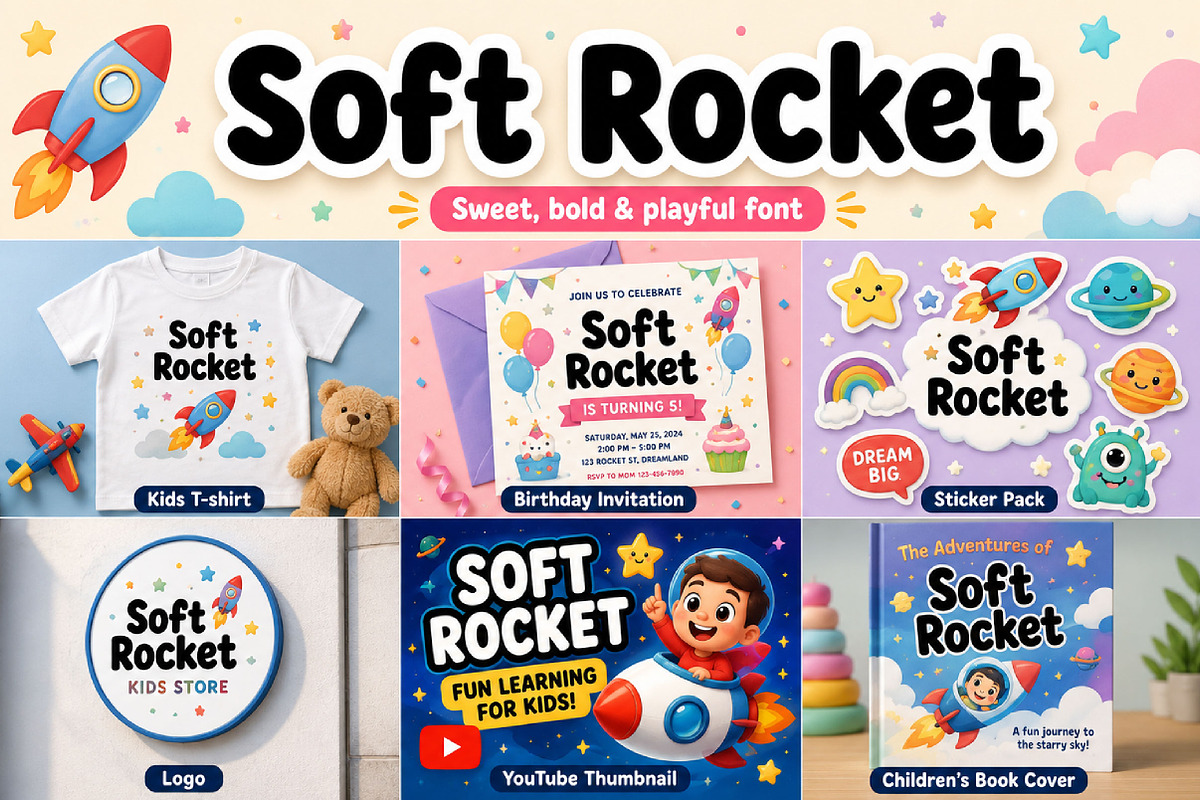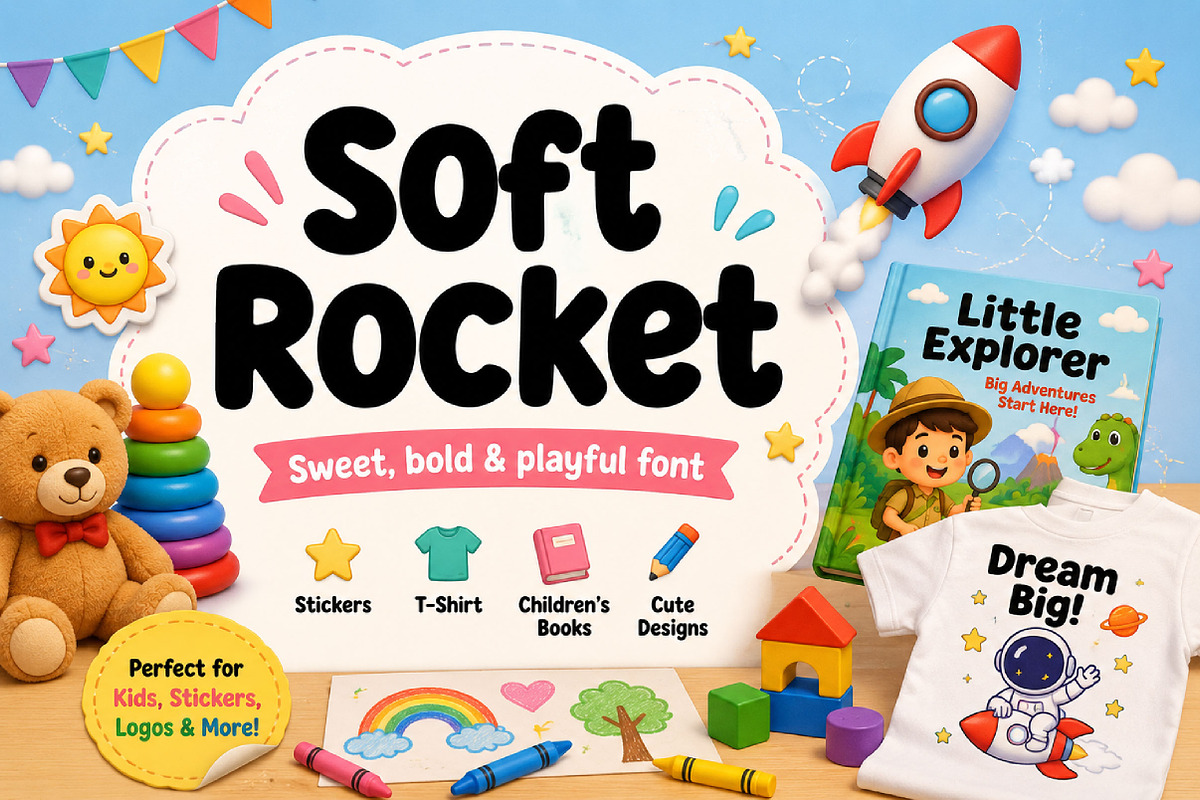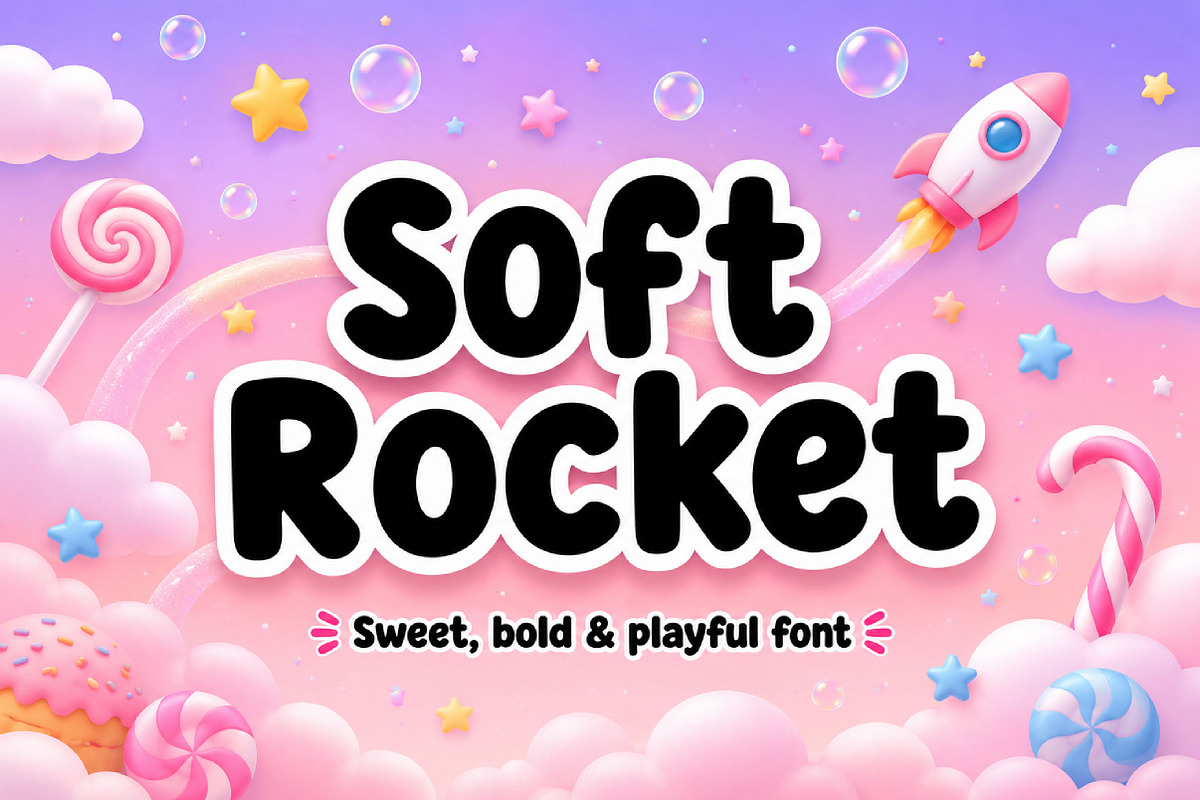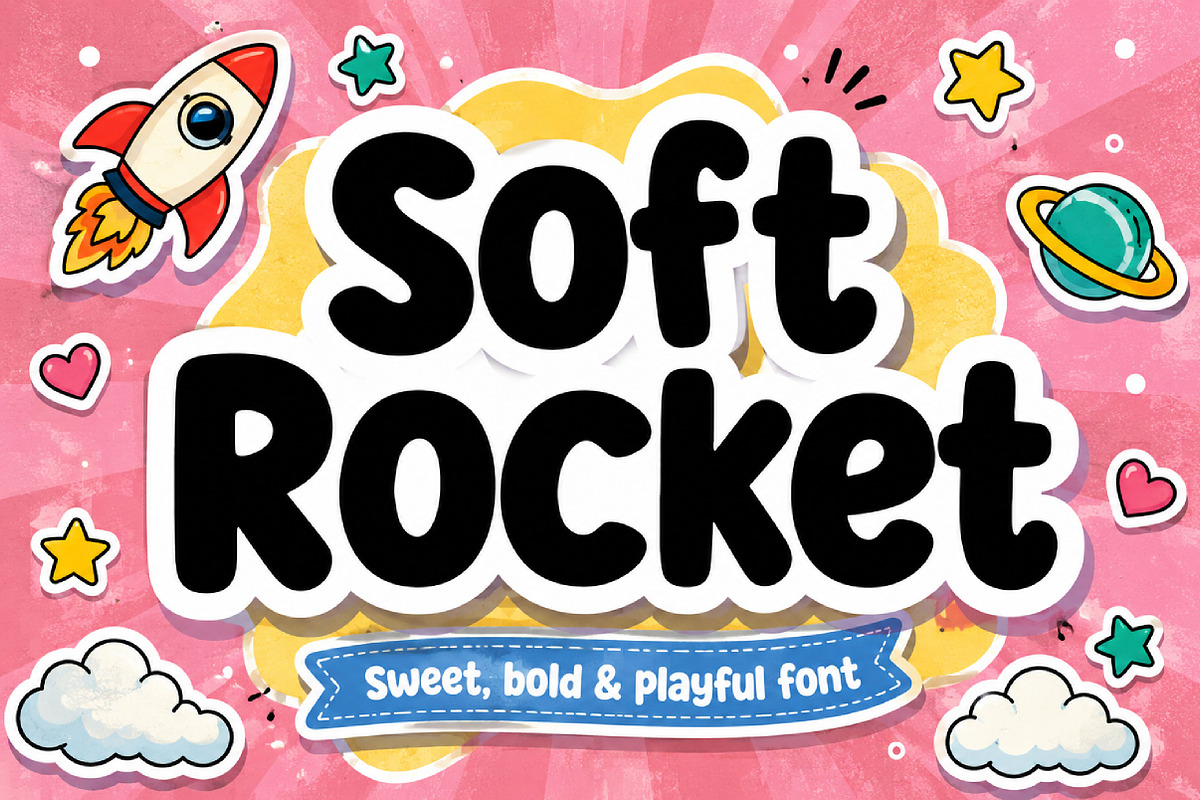
Soft Rocket
Soft Rocket – Bold Rounded Playful Font
Soft Rocket is a bold rounded display font with a fun and friendly style, perfect for kids’ designs, posters, stickers, logos, packaging, and playful creative projects.
Soft Rocket is a playful rounded display font designed to bring a cheerful, bold, and friendly look to your typography. Featuring thick letterforms, soft curves, and smooth rounded edges, this font creates a fun and approachable style that instantly stands out.
Its cute and modern appearance makes Soft Rocket perfect for children’s designs, posters, stickers, toy packaging, logos, social media graphics, apparel, classroom materials, and playful branding projects. The bold rounded structure keeps your text easy to read while adding a lively and joyful personality.
Whether you’re creating fun merchandise, colorful kids’ projects, cheerful branding, or eye-catching headlines, Soft Rocket brings a soft yet energetic character to every design.
Kids’ designs
Posters and headlines
Logos and branding
Stickers and labels
Toy packaging
Children’s books
Apparel and merchandise
Classroom materials
Cute playful themes
Uppercase letters
Lowercase letters
Numbers and punctuation
Bold rounded style
Soft playful appearance
Friendly letterforms
Modern display design
Perfect for display use